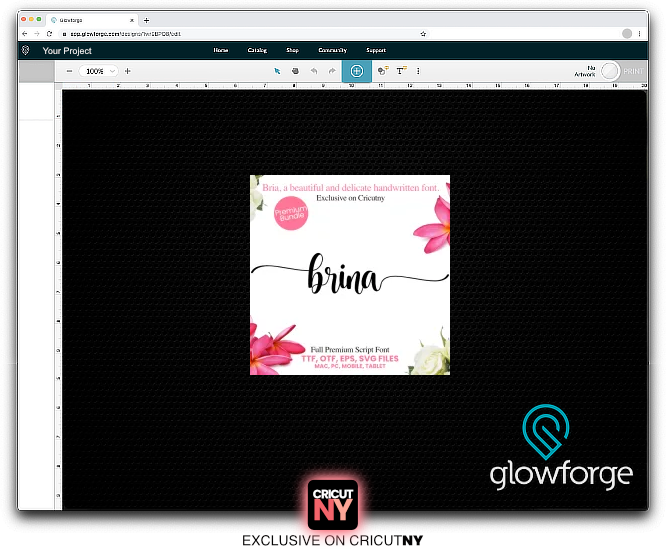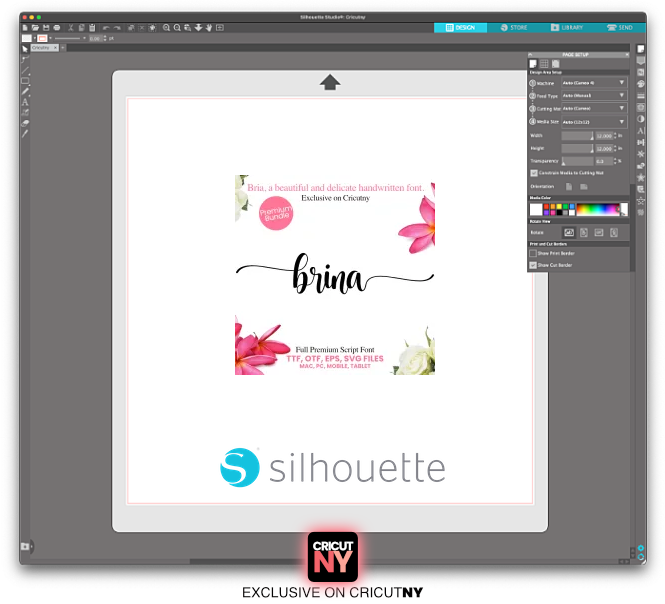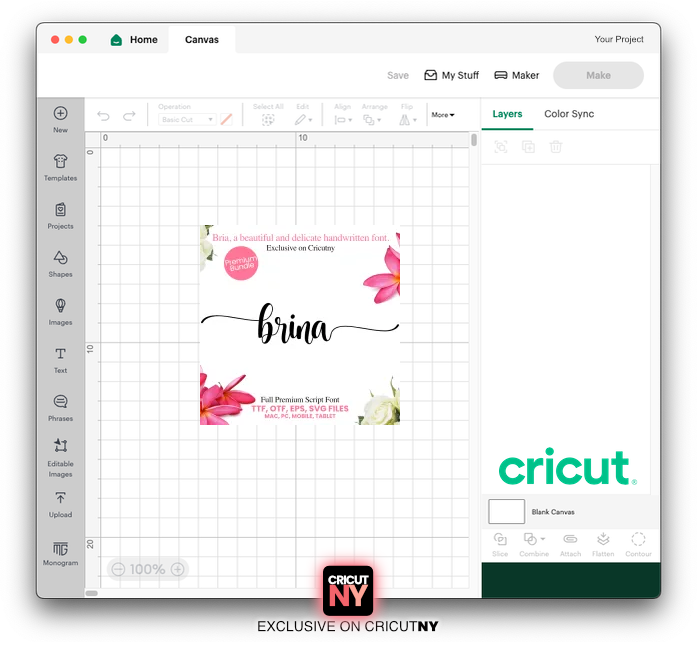
A Beautiful Script handwritten font
A Beautiful Script handwritten font. [Mega Bundle]
Imagine the endless possibilities of crafting with the perfect Script Handwritten Font Bundle. With an abundance of long-tail letters, you can create multiple projects that will leave a lasting impression. This custom-handmade font has been optimized for Cricut (a font optimized for Cricut), yet it is compatible with any cutting machine, design software, or application. The sky’s the limit to what you can achieve.
French speakers can enjoy the full beauty of their language with this font, which comes equipped with all the accents they need to express themselves fully.
Take a moment to explore the image gallery, where you’ll find a font style that exudes creativity and inspiration. With multiple tail letters, hearts, swirls, and ribbons, this font is perfect for special occasions like weddings, baby showers, and welcoming newborns.